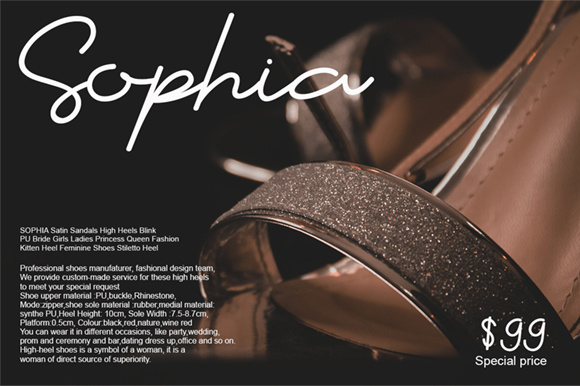
Cartier Script Font
Introducing Cartier Font! It is designed and shared by Graphix Line Studio. The Cartier is a modern hand lettering script. It’s allowing you to create beautiful hand-made typography in an instant. You can do embroidery, laser cut, gold foil,traditional printing tshirt or anything do you want print. Romantic Couple is very easy to use, just write your text name,logo or anything do you want!